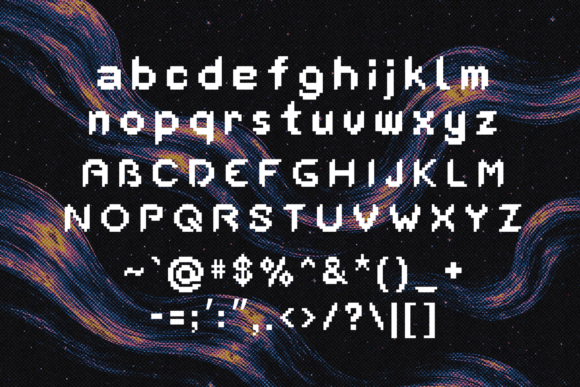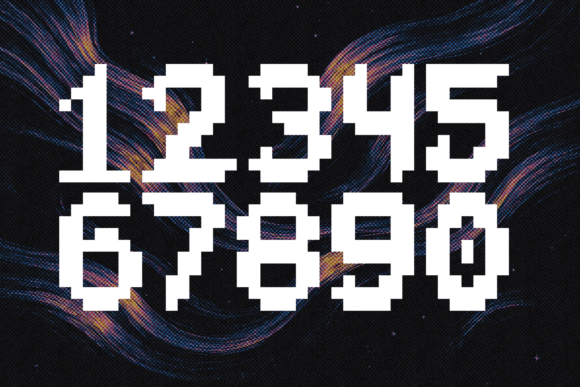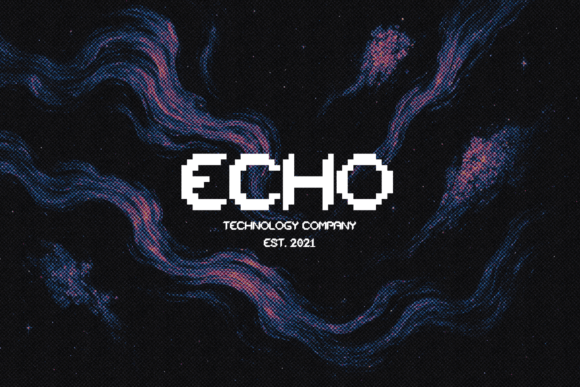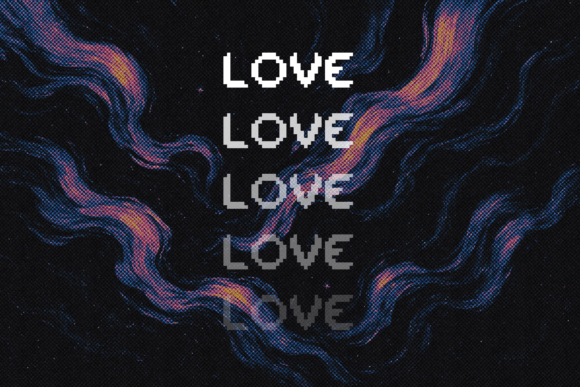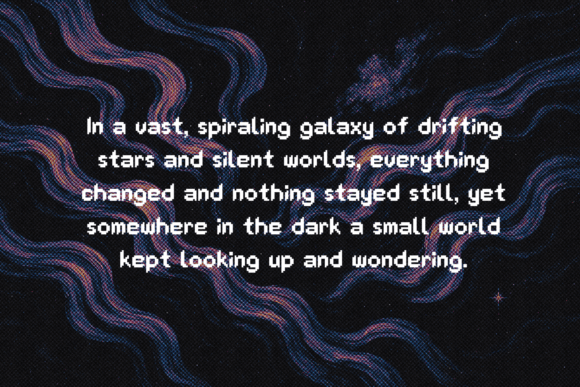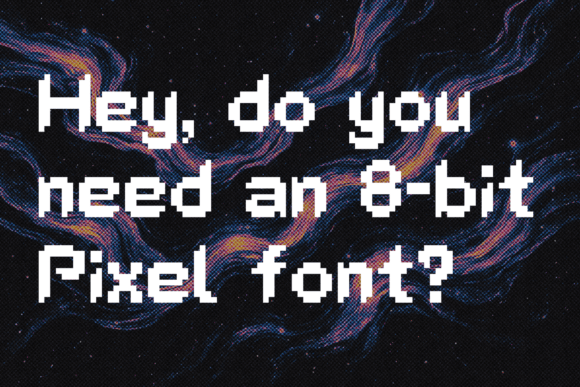
Designing for the Cosmos: The Rise of Galactic Grid Font
Who hasn’t experienced that moment when they stumble upon an old video game and are transported back to a time of pixelated wonder? For designers, this nostalgia can spark creativity and inspire new ideas. The revival of retro aesthetics in modern design has led to a fascinating fusion of classic and cutting-edge styles.
Enter Galactic Grid Font, a futuristic 8-bit pixel font that reimagines retro gaming aesthetics for the modern era. With its blend of classic pixel structure and smooth, serif-like curves, this typeface offers a unique fusion of digital nostalgia and forward-thinking design.
As a valuable addition to any designer’s toolkit, Galactic Grid Font provides a sleek and sophisticated look that’s perfect for projects that sit between retro and futuristic worlds. Its precision-crafted characters balance blocky pixel forms with softened edges, making it ideal for both bold display use and stylized digital layouts.
Galactic Grid Font Key Features
- Font Family: Galactic Grid Font is a unique, futuristic font family designed for various digital applications.
- Unique Characteristics: Galactic Grid Font features a futuristic, grid-based design with geometric shapes and a bold, futuristic aesthetic.
Galactic Grid Font Review
As a designer, I’ve had the chance to work with the Galactic Grid Font, and I must say it’s been an interesting experience. Here are my thoughts.
- Unique aesthetic: The font’s futuristic, grid-based design is sure to grab attention and add a touch of sci-fi flair to any project.
- Legibility: Despite its unconventional design, the font is surprisingly readable, even at smaller font sizes.
- Customization: The font offers a range of customization options, allowing designers to adjust the grid size, spacing, and color to suit their needs.
- Limited language support: The font may not be suitable for projects requiring extensive text content, as it may not render correctly in certain languages.
- Not ideal for small text: While the font is readable, it may not be the best choice for small text sizes, as the grid pattern can become distracting.
- Over-reliance on design elements: The font’s unique design relies heavily on its grid pattern, which can make it difficult to use in situations where a more straightforward font is needed.
The Galactic Grid Font is a bold, attention-grabbing choice that’s perfect for projects that require a touch of futurism and creativity. However, it may not be the best choice for every project, and designers should be aware of its limitations before using it.
Galactic Grid Font: A Practical Application Guide
Tips for Getting the Most Out of Galactic Grid Font
Experiment with different font sizes and styles to achieve the desired effect. Use the grid feature to create intricate and complex designs. Combine the font with other design elements, such as images and graphics, to create visually appealing and cohesive designs.
The Galactic Grid Font is ideal for creating futuristic and space-themed designs, such as:
Science fiction posters and graphics
Space-themed presentations and reports
Futuristic logos and branding
Galaxy-inspired artwork and illustrations
Can I customize the Galactic Grid Font for my project?
Yes, you can customize the Galactic Grid Font to fit your project’s specific needs. The font includes various OpenType features, such as ligatures, swashes, and stylistic sets, which can be accessed using font formatting tools or software. You can also experiment with font modifications, such as font size, line height, and color, to achieve the desired visual effect.